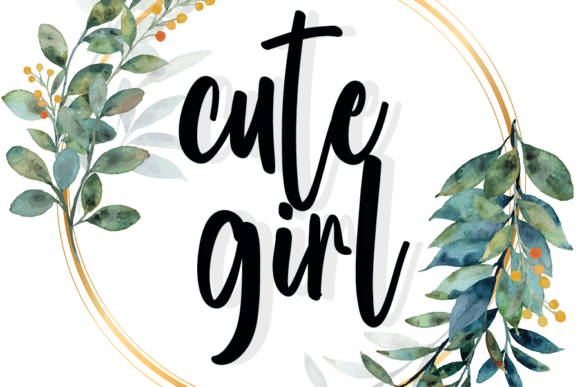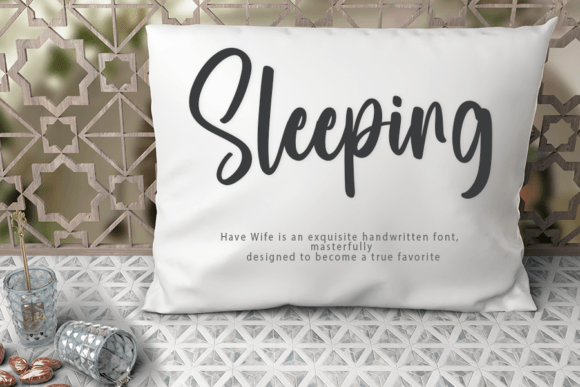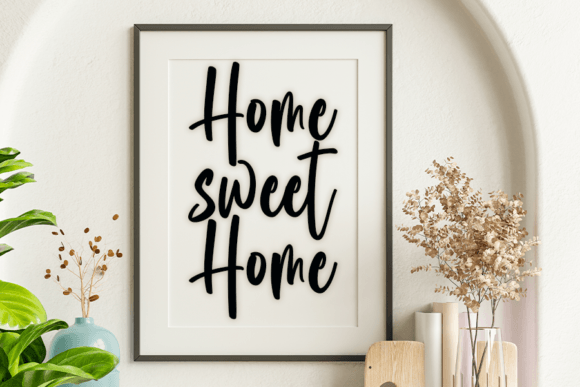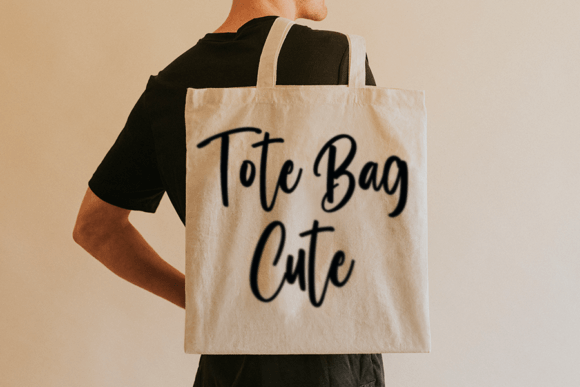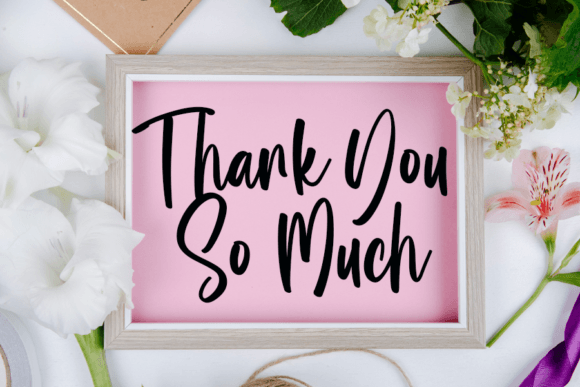
Introducing Have Wife Font: Elevate Your Designs with Elegance
Are you on the lookout for a font that adds a touch of sophistication and elegance to your projects? Look no further than the Have Wife font, a stunning handwritten typeface that is sure to capture your heart. With its unique blend of classic charm and modern flair, this beautiful font is perfect for designers and crafters seeking to create visually stunning designs.
The Distinctive Characteristics of Have Wife Font
Have Wife font is described by its elegant touch, which sets it apart from other fonts in its category. Its incredibly distinct and timeless style makes it an excellent choice for a wide range of projects, from wedding invitations and branding materials to digital content and craft projects. The font’s beautiful, flowing script is sure to add a touch of sophistication to any design.
Why Fall in Love with Have Wife Font?
So, what makes Have Wife font so special? Here are just a few reasons why designers and crafters are falling in love with this gorgeous font:
- Elegant and Refined: Have Wife font boasts an elegant and refined aesthetic that is perfect for creating sophisticated designs.
- Unique and Distinctive: With its unique blend of classic and modern elements, Have Wife font is sure to make your designs stand out from the crowd.
- Timeless Appeal: The font’s timeless style ensures that your designs will remain relevant and stylish for years to come.
- Versatile: Have Wife font is perfect for a wide range of projects, from digital content and social media graphics to print materials and craft projects.
Using Have Wife Font in Your Designs
Have Wife font is incredibly easy to use and can be incorporated into a variety of design projects. Here are a few ideas to get you started:
- Wedding Invitations: Add a touch of elegance to your wedding invitations and stationery with Have Wife font.
- Branding Materials: Use Have Wife font to create stunning branding materials, such as logos, business cards, and letterheads.
- Digital Content: Elevate your digital content, including social media graphics, blog posts, and email newsletters, with Have Wife font.
- Craft Projects: Have Wife font is perfect for craft projects, such as scrapbooking, card making, and DIY signage.
Tips for Getting the Most Out of Have Wife Font
To get the most out of Have Wife font, here are a few tips to keep in mind:
- Experiment with Font Sizes: Have Wife font looks great in a variety of font sizes, so don’t be afraid to experiment to find the perfect size for your project.
- Pair with Other Fonts: Have Wife font pairs beautifully with other fonts, so try combining it with a sans-serif font for added contrast.
- Use in Combination with Images: Have Wife font looks stunning when used in combination with images, so try incorporating it into your designs to add an extra layer of visual interest.
In conclusion, Have Wife font is a beautiful and elegant handwritten font that is perfect for designers and crafters seeking to add a touch of sophistication to their projects. With its unique blend of classic charm and modern flair, this stunning font is sure to capture your heart and elevate your designs to the next level. So why wait? Fall in love with Have Wife font today and start creating spectacular designs that will leave a lasting impression!